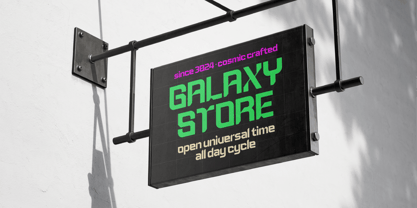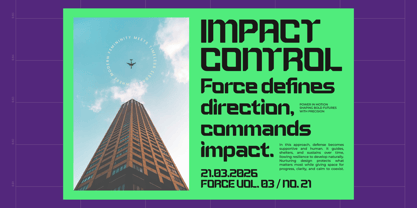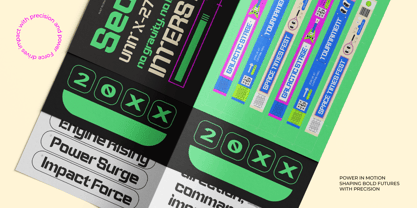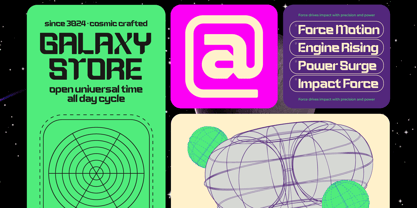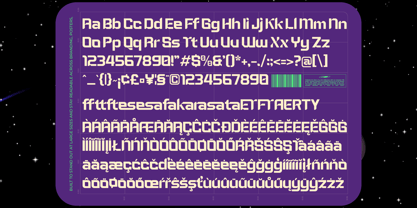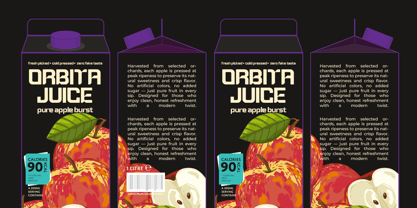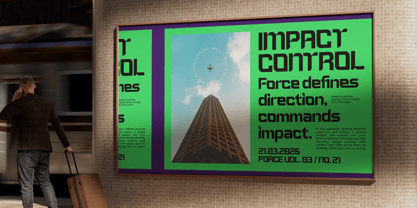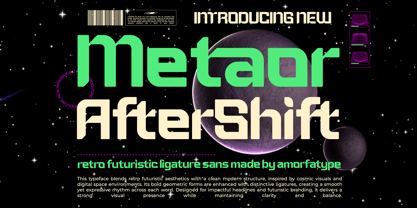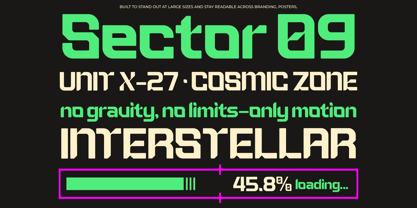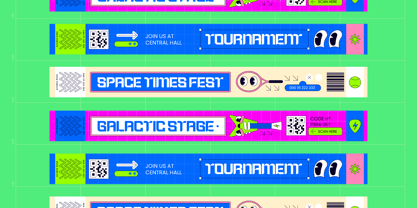
Metaor Aftershift
Die Schriftfamilie Metaor Aftershift wurde von Shiddiq Roihan entworfen und von Amorfa Type veröffentlicht. Metaor Aftershift enthält 2 Stile und Familienpaketoptionen. Mehr über diese Familie
Metaor Aftershift is a bold retro futuristic sans serif inspired by sci-fi visuals, cyberpunk aesthetics, and digital-era design. Built with geometric shapes, sharp edges, and a strong modular structure, it delivers a striking and modern display look. Perfect for tech branding, gaming, esports, posters, UI design, and bold headline compositions that need a strong visual impact. The font includes 12 ligatures and 5 alternates to help you create more dynamic and unique typography, with a total of 349 glyphs for versatile use across projects.